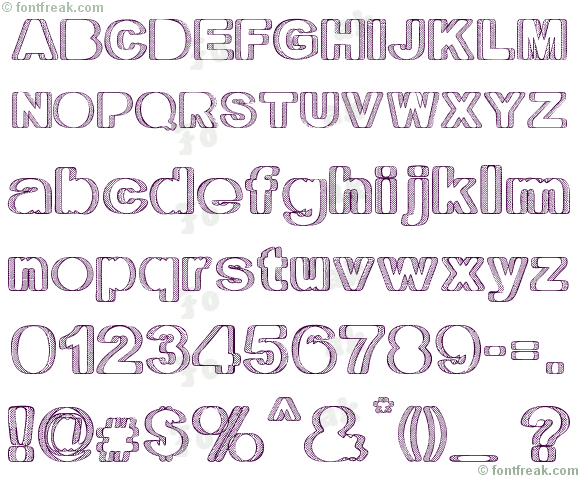
Territorio
About Territorio
Territorio, designed by woodcutter Manero, is a unique decorative typeface that captures attention with its distinctive style. This font embodies a blend of rustic charm and modern flair, making it an exceptional choice for a variety of creative projects. With its playful and artistic strokes, Territorio features a medium stroke weight and subtle contrast, lending it a lively presence without overwhelming the viewer. The spacing between the letters is thoughtfully designed, ensuring readability while allowing the font to maintain its artistic integrity.
Territorio excels in several specific use cases, making it a versatile addition to any designer's toolkit. It is perfect for wedding invitations, where its whimsical nature can evoke a sense of celebration and joy. Additionally, the font works beautifully in restaurant menus, adding a touch of personality that can enhance the dining experience. Movie posters and promotional materials for creative events also benefit from the bold visual impact of Territorio, as it draws the eye and piques interest. Small business owners seeking to establish a unique brand identity can utilize Territorio to convey a sense of creativity and approachability in their marketing materials.
What sets Territorio apart is its ability to blend artistic characteristics with practicality. Its unique design elements make it not just a font but a statement piece that can elevate any project. Whether used sparingly or as the main feature, Territorio is destined to leave a lasting impression.